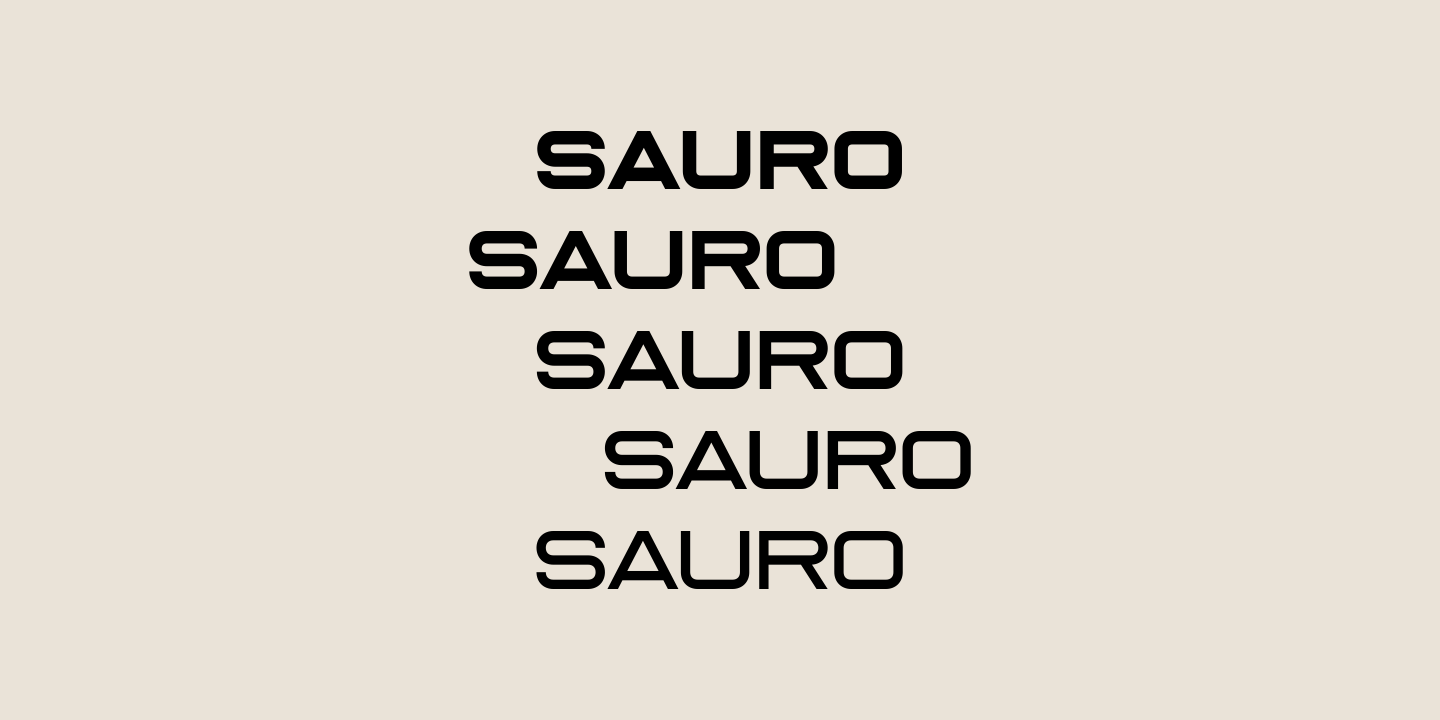
Sauro Font demonstrates exceptional versatility across numerous design applications including gaming interfaces, sci-fi movie titles, tech startup branding, futuristic web designs, app interfaces, digital art projects, electronic music album covers, cyberpunk-themed designs, robotics company logos, and modern advertising campaigns. This cutting-edge typeface seamlessly bridges the gap between contemporary design trends and forward-thinking aesthetics, making it an indispensable resource for designers working on innovative projects.
What makes Sauro Font particularly exciting is its distinctive blend of geometric precision and organic fluidity that creates a truly unique visual experience. The font features bold, angular letterforms with subtle curved elements that suggest both technological advancement and natural evolution. Its character design incorporates innovative spacing and proportions that enhance readability while maintaining a strong futuristic personality. The typeface's ability to convey both strength and sophistication makes it perfect for brands seeking to establish a cutting-edge identity. Each letter has been meticulously crafted to ensure optimal performance across digital platforms while retaining its distinctive character at any size.
The Sauro Font family includes comprehensive weight variations such as Thin, Light, Regular, Medium, Bold, and Black, along with corresponding italic styles for each weight. This extensive range provides designers with maximum flexibility for hierarchical typography and diverse design applications. The family also features condensed and extended versions that maintain the core design DNA while offering additional layout possibilities. Special display variants may include outline, shadow, and textured versions that enhance the font's dramatic impact for headline applications.
Creative professionals consistently choose Sauro Font Free Download for projects that demand both visual impact and contemporary relevance. This remarkable typeface has earned acclaim in the design community for its innovative approach to modern typography and exceptional build quality. The font's advanced OpenType features include stylistic alternates, contextual ligatures, and specialized punctuation marks that elevate the overall typographic experience.
Whether you're developing video game interfaces, creating tech company presentations, designing mobile applications, or crafting futuristic brand identities, Sauro Font delivers exceptional results. Its modern aesthetic makes it particularly appealing to technology companies, gaming studios, digital agencies, and innovative startups looking to communicate progress and innovation through their visual identity.
The font's technical excellence ensures flawless performance across all major operating systems and design software. It includes extensive Unicode support for international character sets, making it suitable for global projects and multilingual applications. The careful optimization guarantees sharp rendering on both retina displays and standard screens, maintaining clarity whether used in web design or print applications.
Professional designers value Sauro Font's ability to convey innovation and reliability simultaneously. Its bold presence commands attention while remaining highly legible, making it ideal for brands that need to balance creativity with professionalism. The font's futuristic character helps organizations position themselves as industry leaders while maintaining accessibility for diverse audiences and market segments.